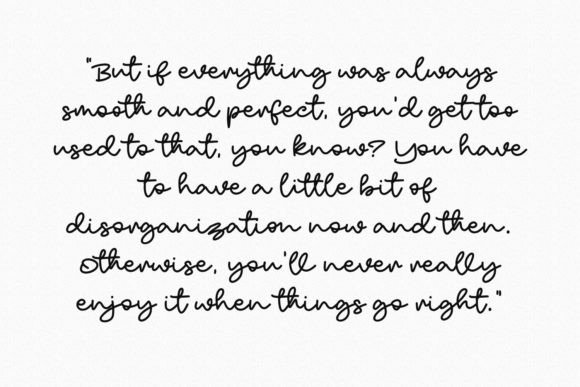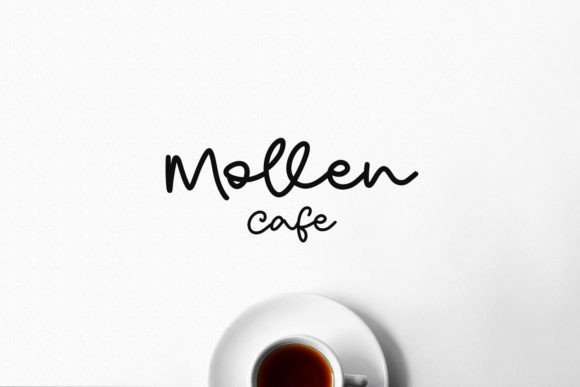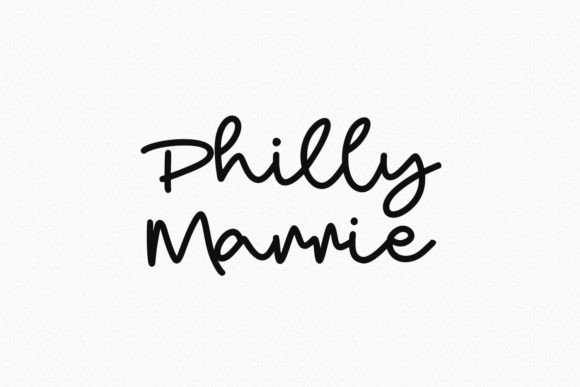
Introduction to Shorebird Font
Have you ever found yourself stuck in the middle of a creative project, yearning for the perfect font to bring it to life? That’s where the Shorebird Font comes in – a stylish and modern script font designed to elevate your designs and leave a lasting impression. With its effortless, handwritten feel, Shorebird Font is perfect for adding a touch of sophistication to your next creative project.
As a valuable resource for designers, Shorebird Font offers a high-quality solution for those seeking a unique and visually appealing design element. Whether you’re working on a branding project, creating a social media graphic, or designing a website, Shorebird Font is sure to be a game-changer. And the best part? It’s available for free download, allowing you to experiment with it on a transparent background and see how it can enhance your design.
Key Features of Shorebird Font
- High-quality design resource for creative projects, ideal for use in logos, branding, and other visual identities.
- Unique, hand-drawn style with a transparent background, allowing for seamless integration into any design.
- Perfect for designers and artists seeking a distinctive, creative font for their projects.
- High-resolution design, suitable for use in print and digital applications at resolutions up to 300 DPI.
- Extensive character set, including a wide range of glyphs and symbols for maximum versatility.
Honest Review: Shorebird Font
I recently had the chance to work with the Shorebird Font for a creative project, and I was pleasantly surprised by the high quality of this design resource.
Here are some things that work well for the Shorebird Font: ✨
- Elegant script style that adds a touch of sophistication to any design
- High-resolution files for print and digital use
- Transparent background option for easy customization
However, there are some limitations to consider: ⚠️
- Limited character set, which may not be suitable for longer text
Overall, I was impressed with the Shorebird Font’s elegant style and versatility. While it may not be perfect for every design project, it’s definitely a valuable addition to any designer’s toolkit. If you’re looking for a high-quality font to add some flair to your creative project, I’d definitely recommend giving the Shorebird Font a try.
To get the most out of the Shorebird Font, use it in conjunction with other design elements to create a cohesive and visually appealing design. Experiment with different font sizes, colors, and arrangements to find the perfect balance.
The Shorebird Font is ideal for a variety of creative projects, including:
- Branding and logos
- Print and digital media
- Website design
Alternatives to Shorebird Font
Pacifico is a beautiful, elegant script font ideal for creative projects requiring a high-quality, cursive design resource. It features a transparent background, making it perfect for overlaying on images or using as a standalone font. Pacifico is available for free download and is often used in wedding invitations, branding, and editorial design. Compared to Shorebird Font, Pacifico has a more refined and sophisticated feel, making it suitable for high-end projects.
Great Vibes is a fun, modern script font that’s perfect for designers looking for a high-quality, free download. It features a transparent background and is ideal for creative projects requiring a playful, energetic feel. Great Vibes is often used in branding, advertising, and social media design. Compared to Shorebird Font, Great Vibes has a more casual and laid-back vibe, making it suitable for projects that require a relaxed atmosphere.
Alex Brush is a elegant, handwritten font that’s perfect for designers looking for a high-quality, free download. It features a transparent background and is ideal for creative projects requiring a sophisticated, cursive design resource. Alex Brush is often used in branding, editorial design, and packaging design. Compared to Shorebird Font, Alex Brush has a more refined and delicate feel, making it suitable for high-end projects that require a touch of sophistication.